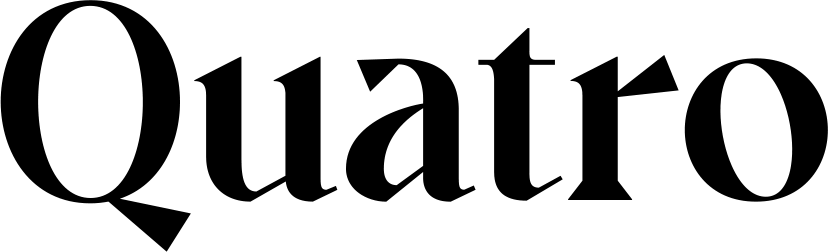
Quatro Font
We are thrilled to offer this serif font to you. As you can see Quatro is available with semi-bold letters and can share a neat vibe. Feel free to use it for different situations, namely; books, branding, flyers, and other needs. Note that it doesn’t contain numbers. By the way, RB is uploading new and free resources constantly, don’t miss them.